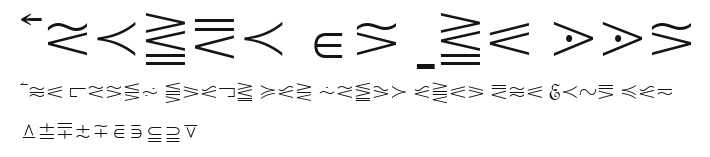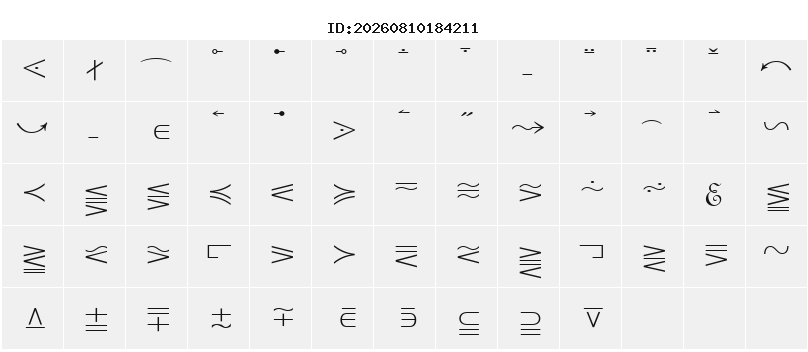
Quanta Pi One SSi Preview
• Font Name: Quanta Pi One SSi
About Quanta Pi One SSi.ttf
Quanta Pi One SSi.ttf is a modern, elegant sans-serif font designed for ultimate readability and visual harmony. Perfect for branding, headlines, web design, and print materials.